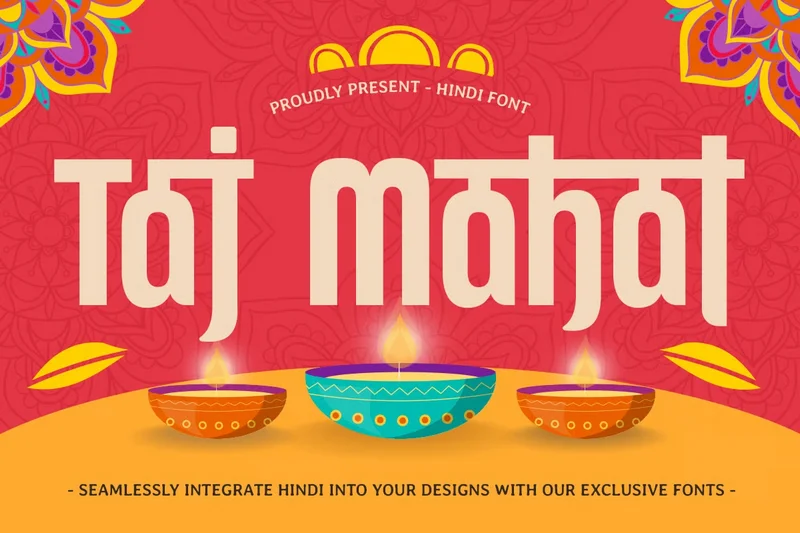
Taj Mahal – Hindi Diwali India Font
TAJ MAHAL is a Hindi Diwali India font inspired by the beauty of Indian culture, festive traditions, and classical Hindi-style lettering. Its decorative strokes and ethnic patterns make it ideal for projects that need a touch of heritage, authenticity, and celebration.
Perfect for festival posters, Diwali invitations, cultural branding, packaging, and traditional design projects, TAJ MAHAL combines festive elegance with a unique Indian aesthetic. Bring the warmth and vibrancy of India’s cultural identity into your design with this bold and distinctive typeface.
TAJ MAHAL – Hindi Diwali India Font Features
Ethnic, decorative letterforms inspired by Indian tradition
Ideal for Diwali, festival, cultural, and celebration themes
Includes uppercase, lowercase, numerals, and punctuation
Unique design that captures heritage and festivity
OpenType features for versatile typographic options
Celebrate culture and tradition with TAJ MAHAL – the perfect font for Hindi, Indian, and Diwali-inspired designs. �✨